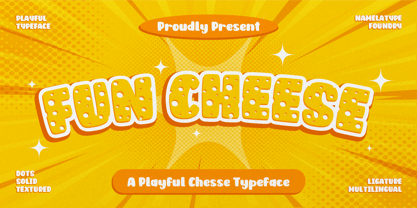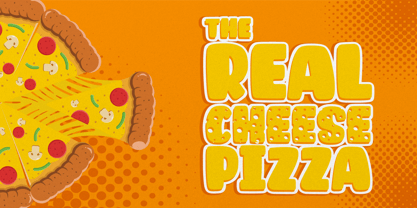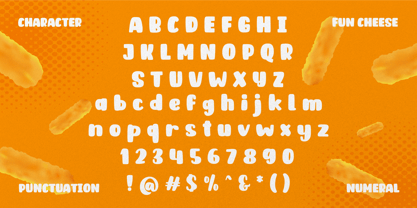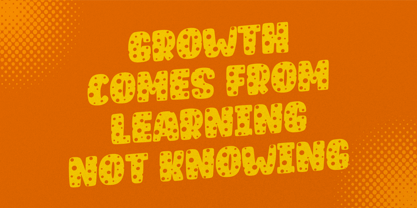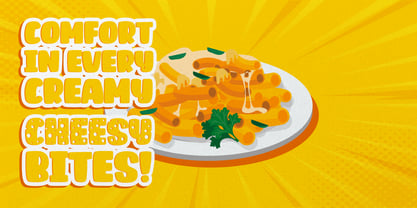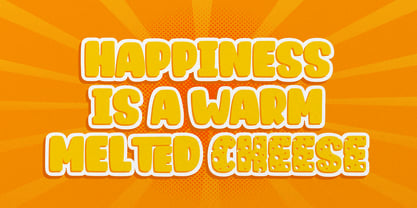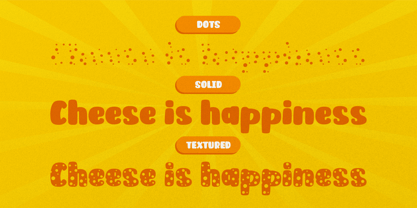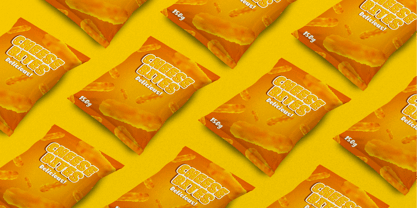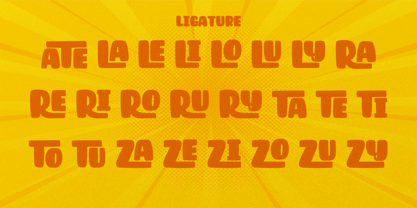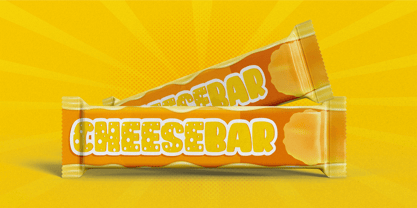
Fun Cheese
The Fun Cheese Font Family was designed by Bustanul Arifin and published by FunFont. Fun Cheese contains 3 styles and family package options. More about this family
Fun Cheese is A layered and textured cheese font is a playful, whimsical typeface that mimics the look of cheese with irregular, hole-filled letters and a layered design. This font style is ideal for adding a sense of fun and creativity, often featuring a mix of soft edges and chunky forms with a tactile, dimensional quality. Its layered structure allows for color stacking and textured overlays.